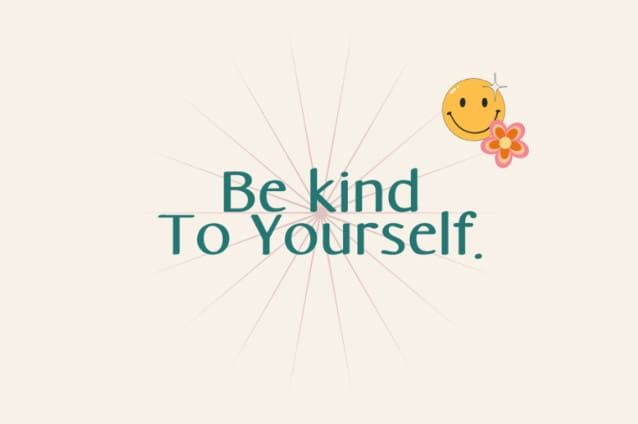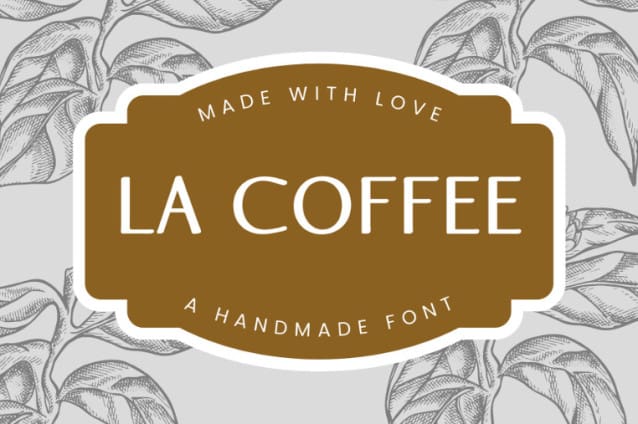
La Coffee Font
La Coffee Font, a sleek, cool and professional font that is perfect for adding a unique touch to your branding, logos, or your instagram quotes.
It includes uppercase, lowercase, numbers, symbols and with Latin extended character support, it is versatile for a variety of creative endeavors, while exuding a rustic charm.
La Coffee will look great on invitations, packaging, slideshows, logos, headlines, lettering, posters, branding, inspirational quotes, headlines, magazine layouts, website designs, advertising, invitations, packaging designs, book covers and any other creative endeavour.